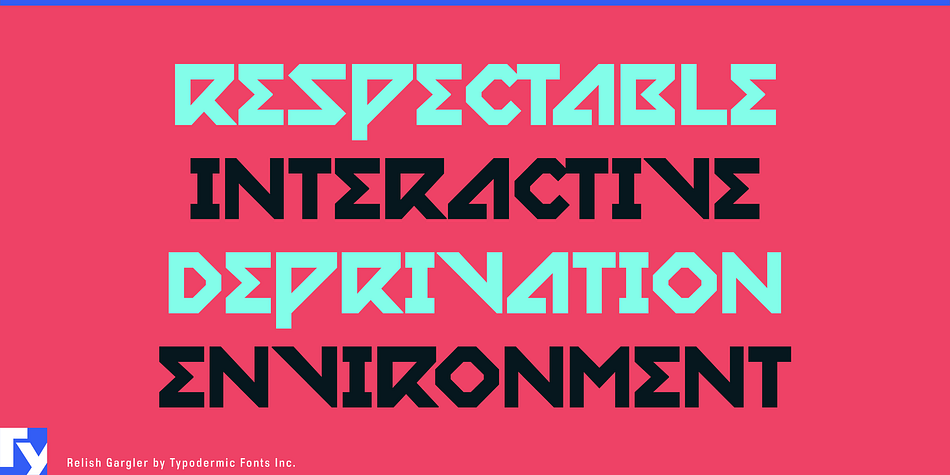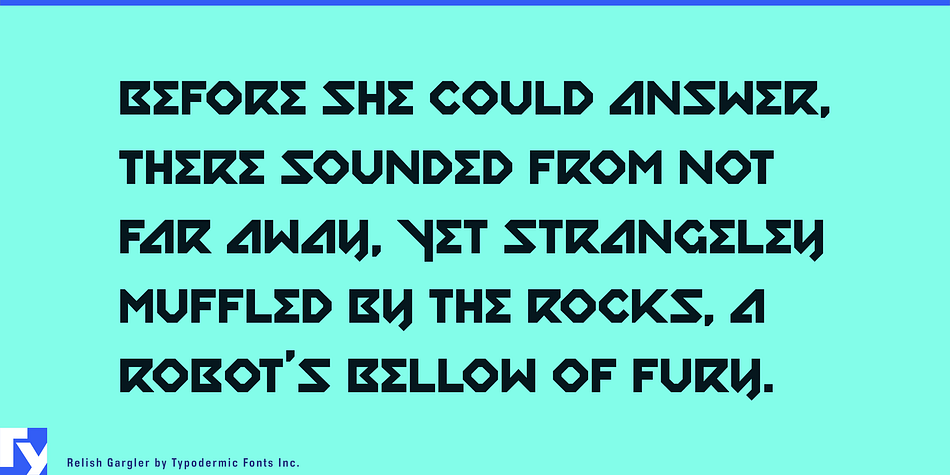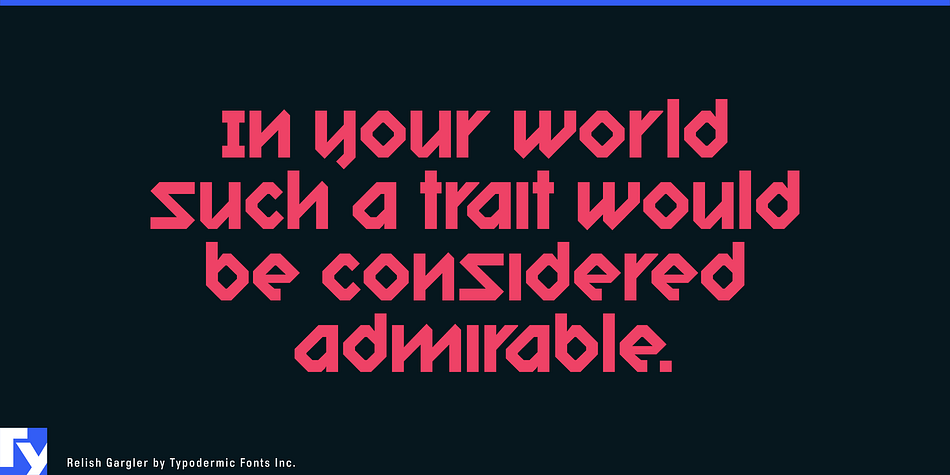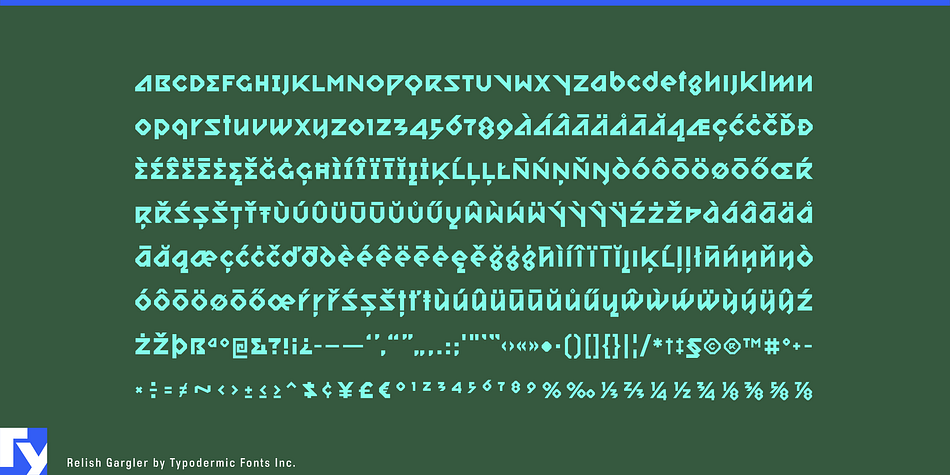
Relish Gargler is a display font published by Typodermic Fonts Inc.
Relish Gargler is a sharp-cornered headline shouter inspired by assorted video game cabinets.